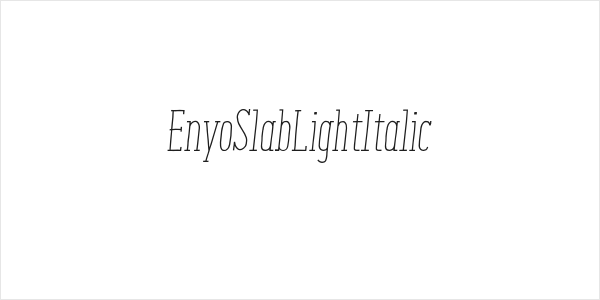
EnyoSlabLightItalic Font
This font features a refined and elegant design with a light weight and italic style. The characters are slender and elongated, giving a sophisticated and airy appearance. The serifs are subtle yet distinct, adding a touch of classic elegance. The overall look is modern with a hint of vintage charm, making it versatile for various design needs. The spacing between characters is normal, ensuring readability while maintaining its stylish flair. The contrast in stroke thickness is low, contributing to its delicate and graceful aesthetic.
| Proposed Projects | Ideal for wedding invitations, elegant branding, fashion magazines, and upscale product packaging. |